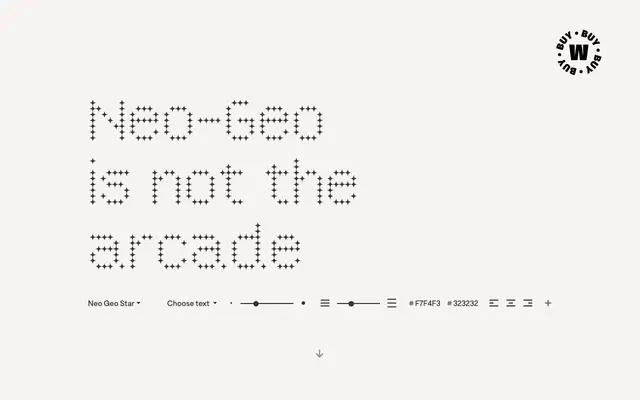
Neo-Geo
A modular variable display typeface by David Súid built from three geometric forms — circle, star and square — across nine fixed weights.
Developed through experiments with variable font technology, Neo-Geo applies a strict modular construction system to produce letterforms derived from the square, circle and star. The family ships in nine styles grouped across three shape variants, each available in regular, mid and black weights, with a variable version that interpolates between them. Intended for titles and short-copy contexts in contemporary graphic compositions.
Neo-Geo is a modular variable display typeface built from geometric shapes — squares, circles and stars — with no conventional letterform tradition, placing it firmly in the display category with a geometric constructivist subcategory.